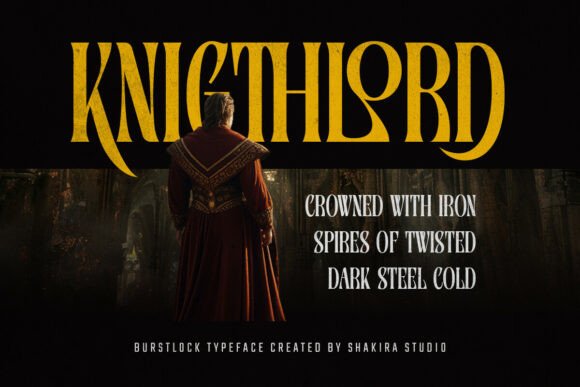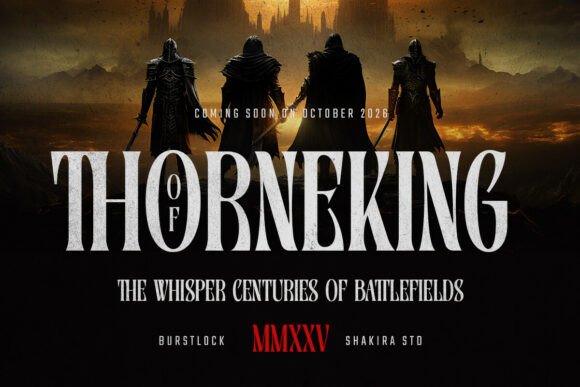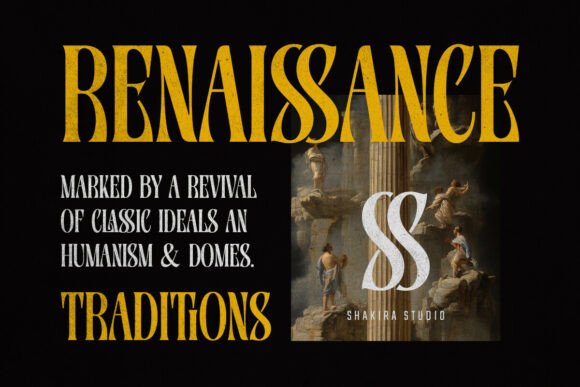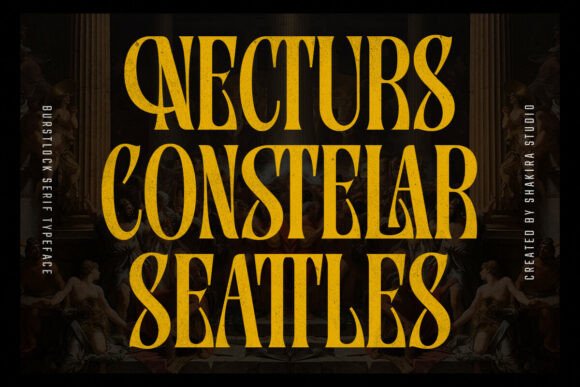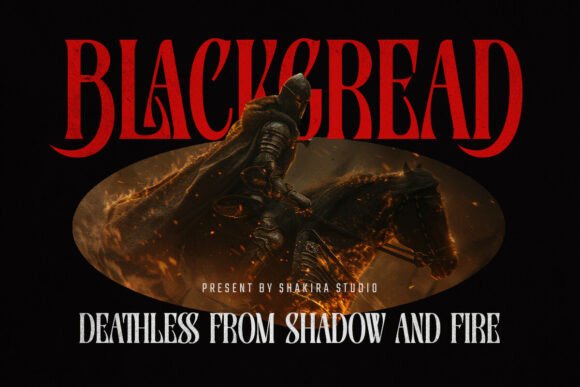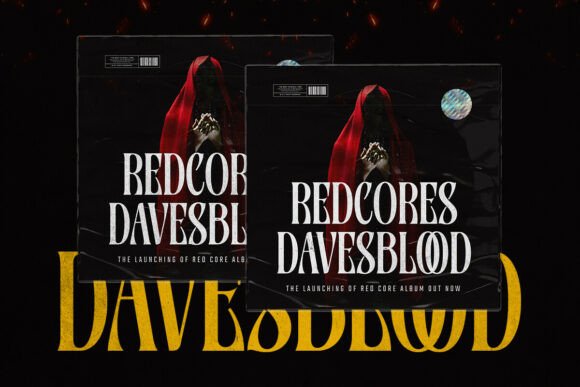
Burstlock Font: Unleash the Power of Fantasy and Drama in Your Designs
In the realm of typography, few fonts can evoke the sense of grandeur and drama that Burstlock font embodies. This fantasy medieval serif font is designed to make a statement, boasting strong, dramatic characters that are perfect for a variety of creative projects. From game titles and fantasy book covers to movie posters, esports branding, and epic themed projects, Burstlock is the ideal choice for designers seeking to add a touch of power and sophistication to their work.
What is Burstlock Font?
Burstlock is a display serif typeface that is characterized by its sharp details and bold proportions. The font’s design is inspired by the grandeur of medieval times, with intricate serifs and a robust structure that exudes strength and drama. Whether you’re looking to create a striking title for a fantasy novel or a bold logo for an esports team, Burstlock font is sure to deliver a powerful visual impact.
Key Features of Burstlock Font
- Medieval Inspiration: Burstlock font draws inspiration from the typography of medieval times, with intricate serifs and bold lines that evoke a sense of grandeur and drama.
- Sharp Details: The font’s sharp details add a level of sophistication and elegance to any design, making it perfect for high-end projects.
- Bold Proportions: Burstlock’s bold proportions ensure that your text stands out, even at smaller sizes.
- Display Serif Typeface: As a display serif typeface, Burstlock is designed to make a statement, making it perfect for titles, headings, and other prominent text elements.
Use Cases for Burstlock Font
Burstlock font is incredibly versatile, making it suitable for a wide range of creative projects. Here are some use cases where Burstlock truly shines:
- Game Titles: Add a touch of drama and fantasy to your game titles with Burstlock font.
- Fantasy Book Covers: Create eye-catching book covers that transport readers to a world of fantasy and adventure.
- Movie Posters: Use Burstlock font to create bold, attention-grabbing movie posters that set the tone for an epic cinematic experience.
- Esports Branding: Elevate your esports brand with a bold, modern logo that exudes strength and competition.
- Epic Themed Projects: Whether you’re working on a documentary, animation, or any other project with an epic theme, Burstlock font is the perfect choice.
Benefits of Using Burstlock Font
So, why choose Burstlock font for your next project? Here are some benefits that make Burstlock an attractive choice for designers:
- Unique and Memorable: Burstlock font is designed to stand out, ensuring that your text is remembered long after it’s seen.
- Highly Versatile: From print to digital designs, Burstlock font adapts seamlessly to any medium.
- Easily Readable: Despite its bold and dramatic design, Burstlock font remains highly readable, even at smaller sizes.
- Time-Saving: With Burstlock font, you can achieve professional-looking results in a fraction of the time, allowing you to focus on other creative aspects of your project.
| Font Name | Burstlock Font |
| Author | Shakira Studio |
Burstlock font is a powerful tool for designers seeking to add drama, fantasy, and sophistication to their work. With its sharp details, bold proportions, and medieval inspiration, Burstlock is the perfect choice for a wide range of creative projects. Whether you’re a seasoned designer or a crafty DIY enthusiast, Burstlock font is sure to elevate your designs to new heights. So why wait? Unleash the power of Burstlock font in your next project and make a lasting impression on your audience.